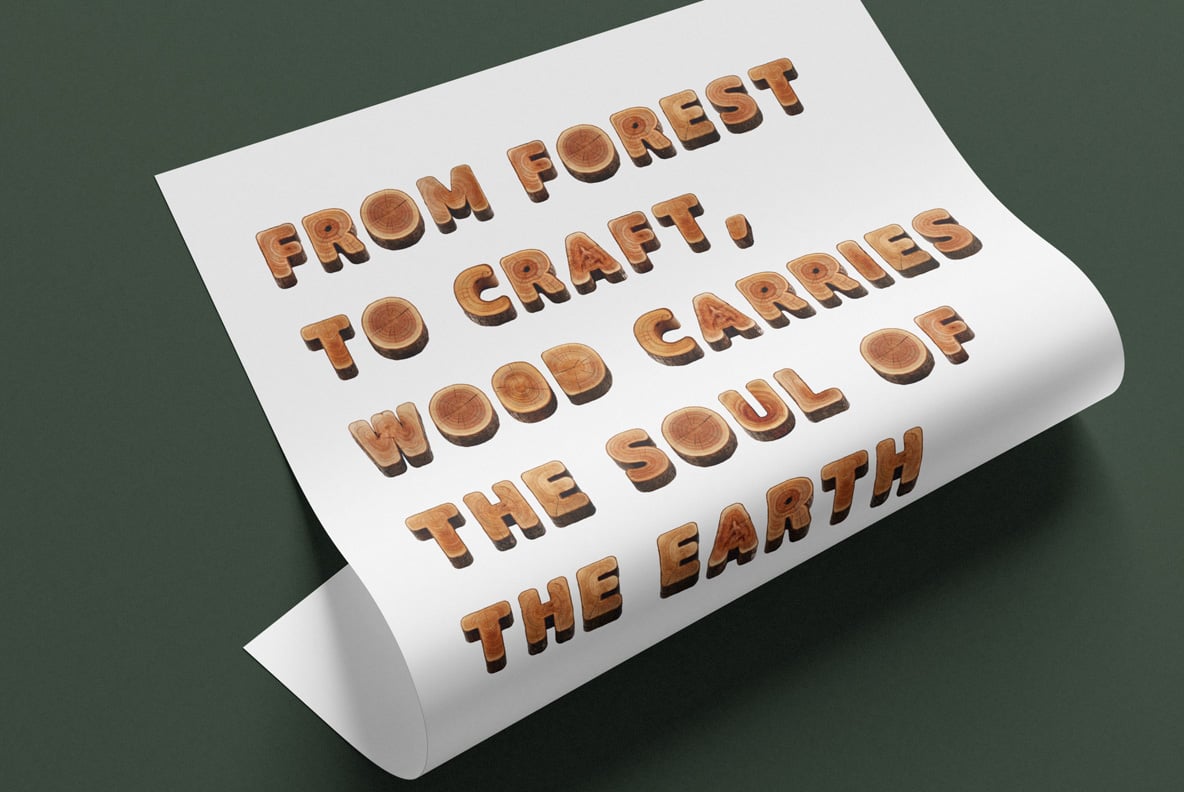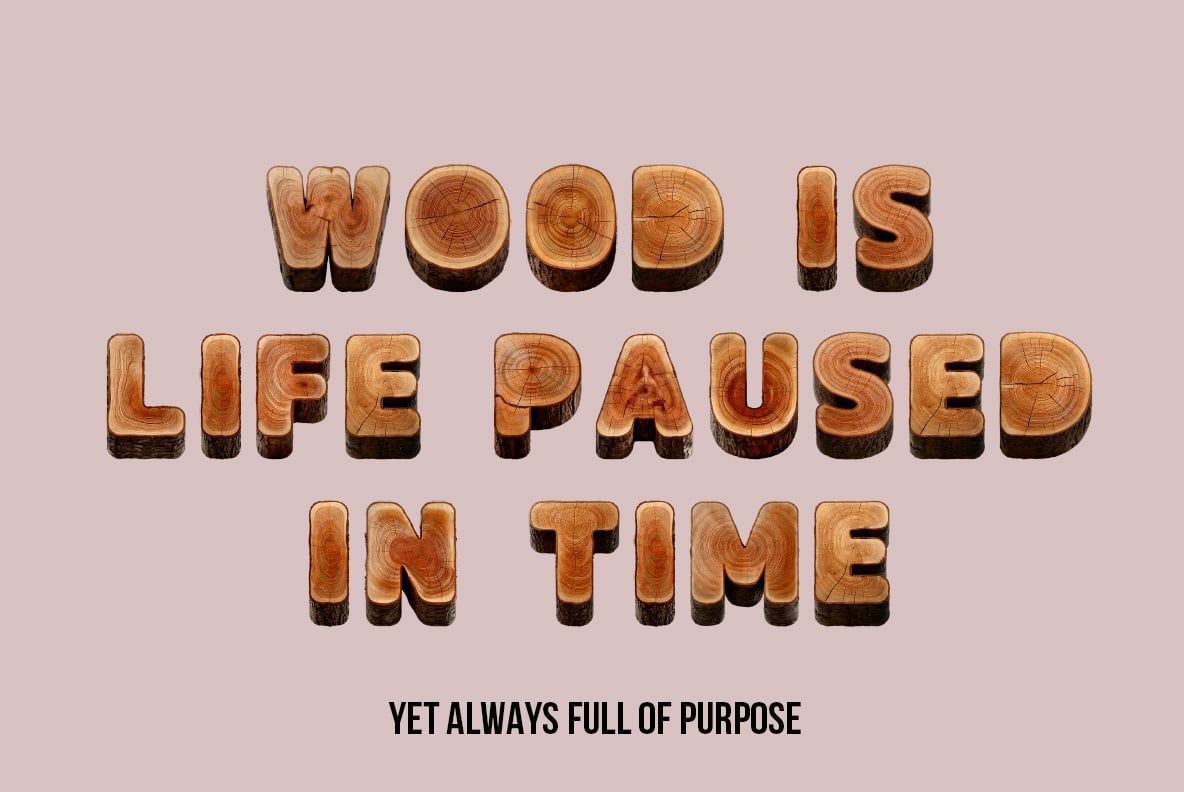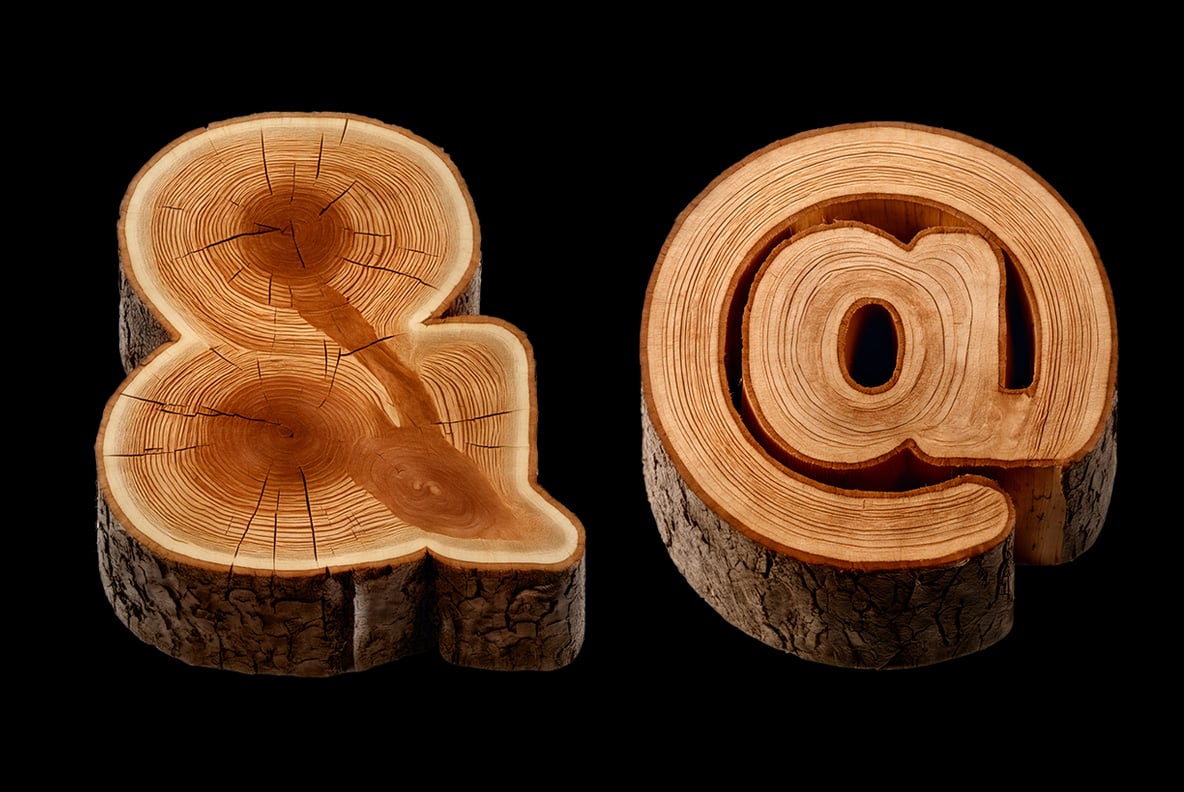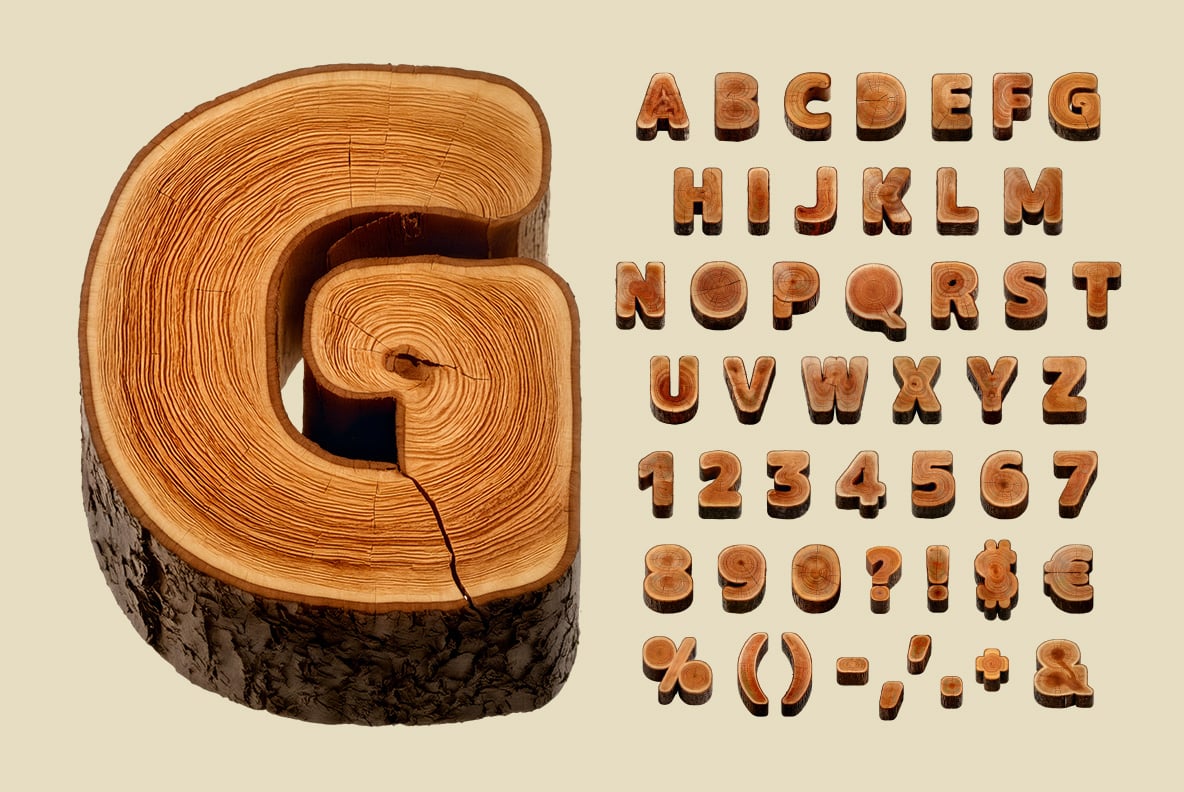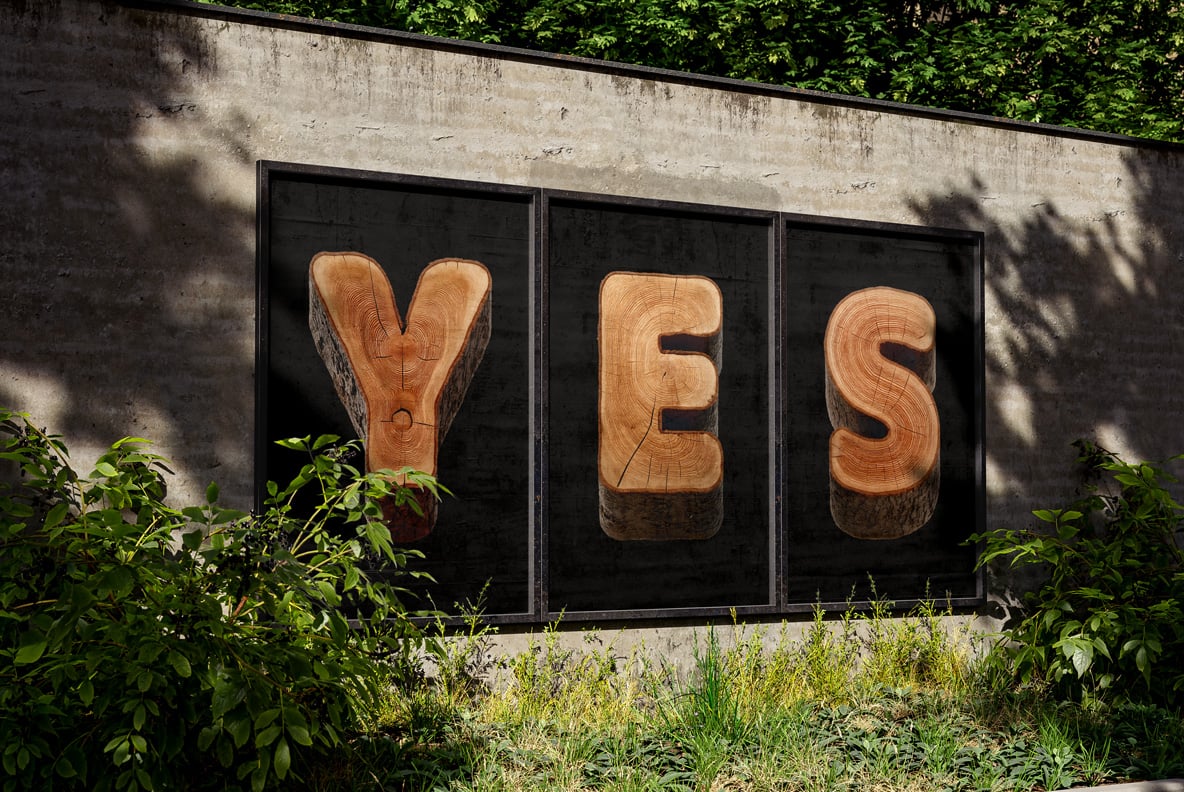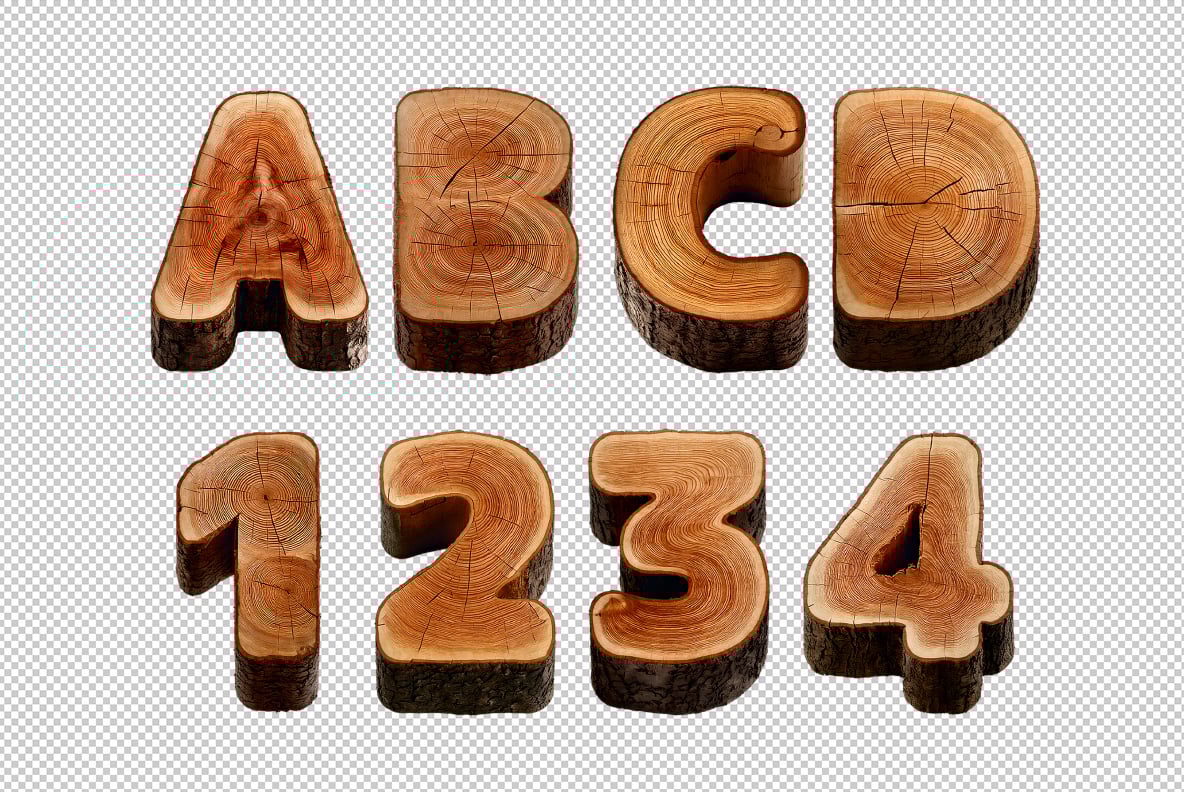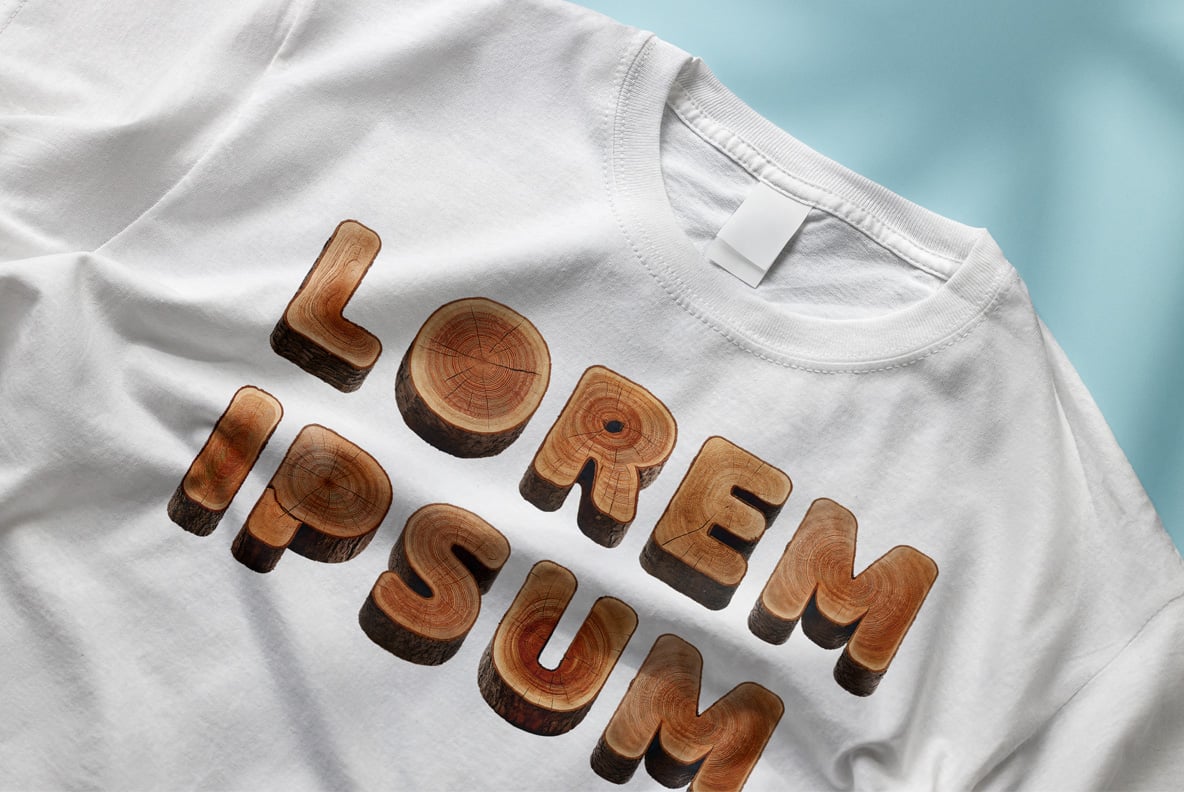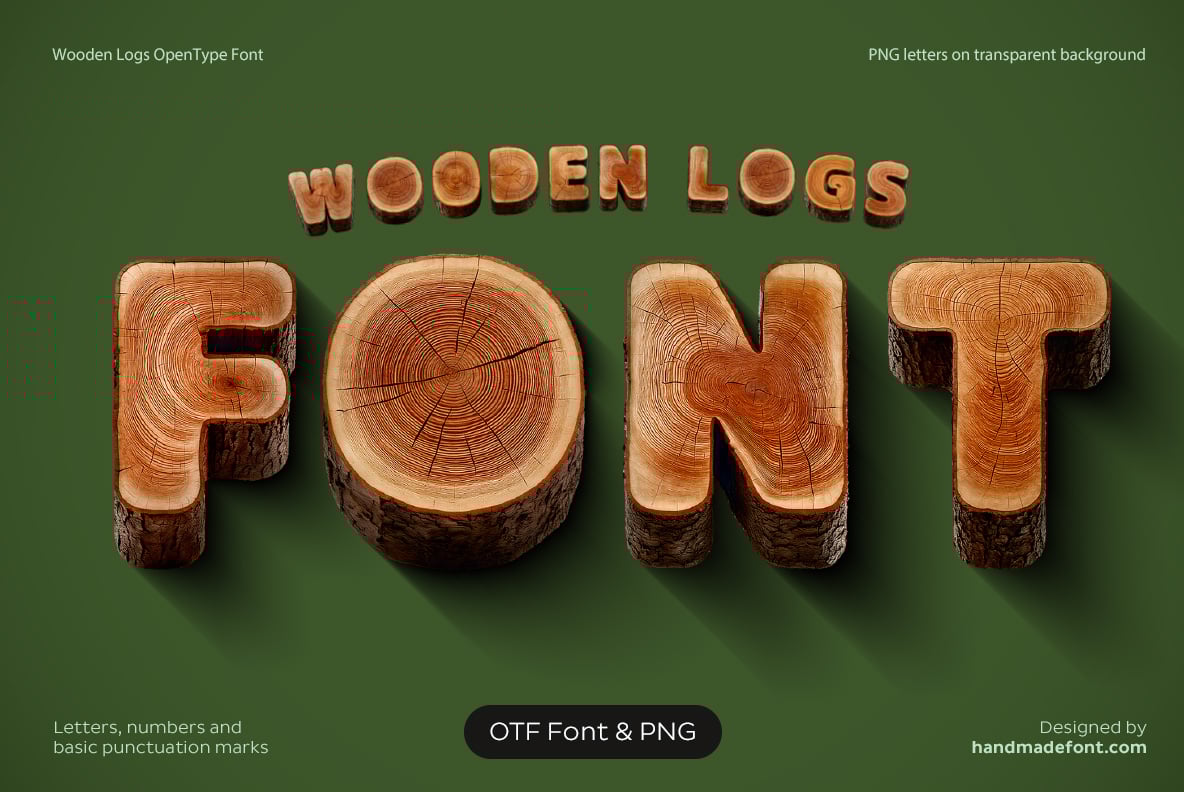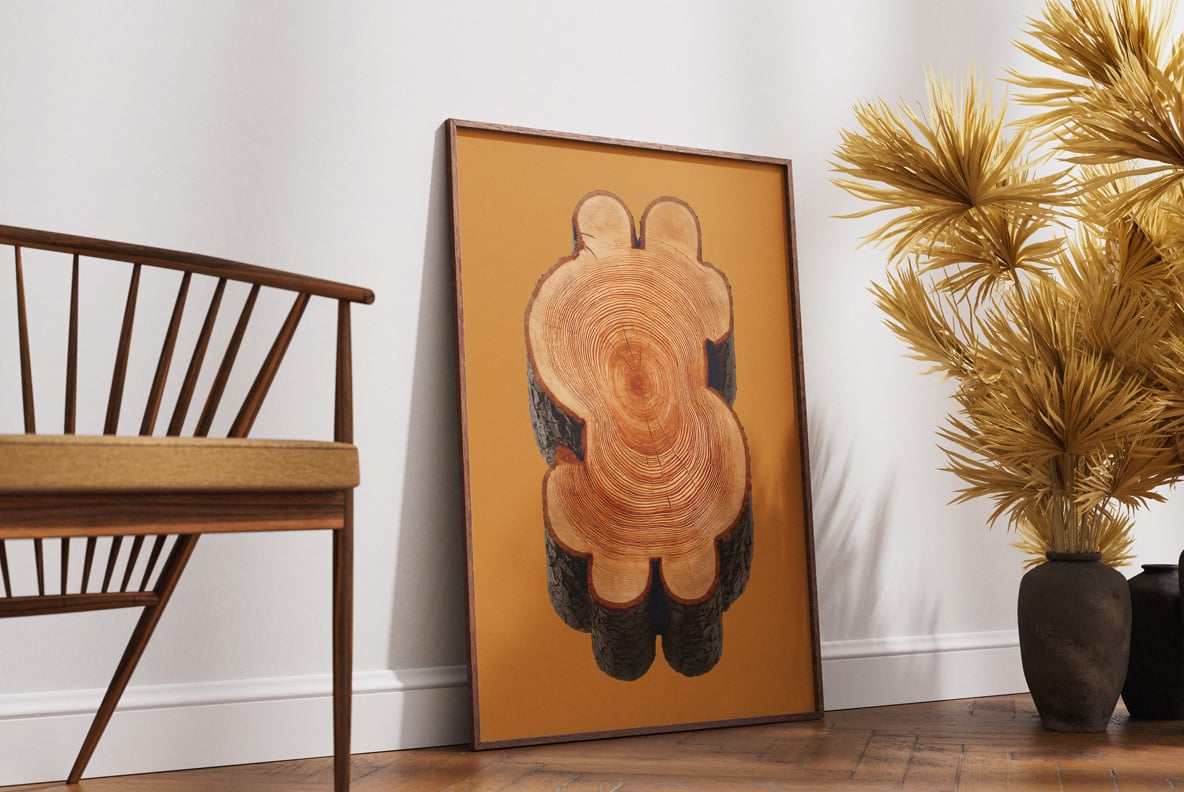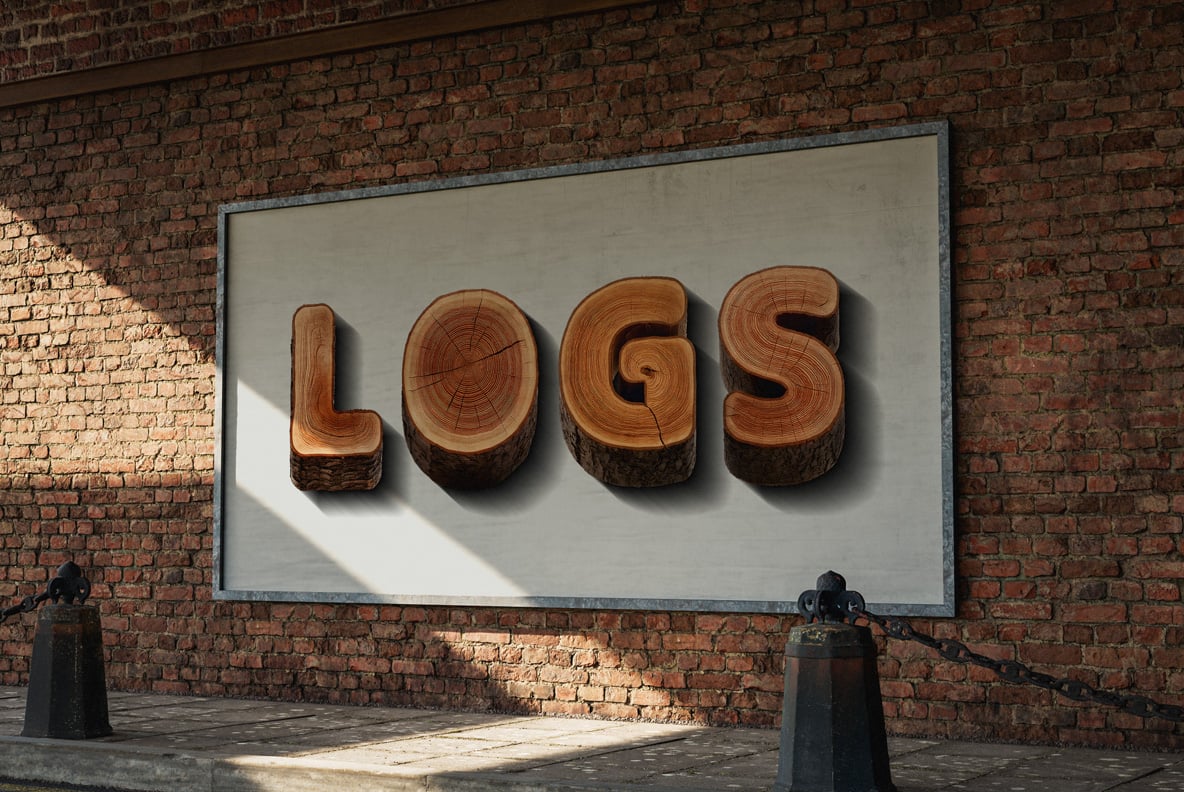
Wooden Logs Font
Introducing the "Wooden Logs Font" – a nature-inspired alphabet crafted entirely from wooden logs. Each letter is uniquely designed to resemble stacked or carved wood, embodying rustic charm and earthy vibes. Perfect for nature-themed designs, eco-friendly branding, or outdoor event materials, this font brings a natural, textured feel to your creative projects. Whether for logos, posters, or invitations, the "Wooden Logs Font" adds warmth and organic beauty to any design, connecting creativity with the essence of nature.